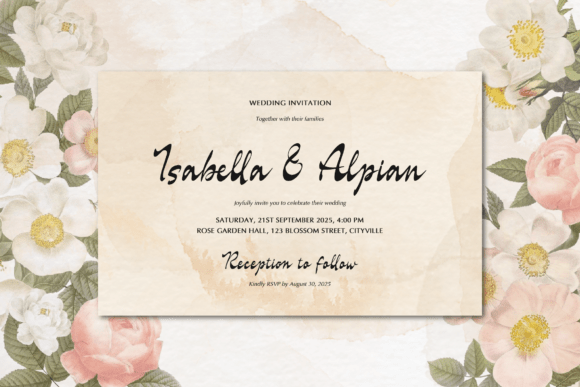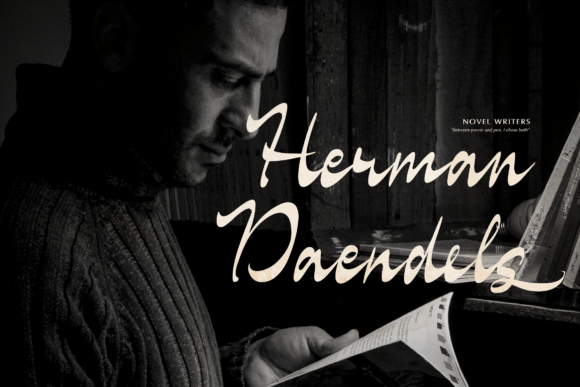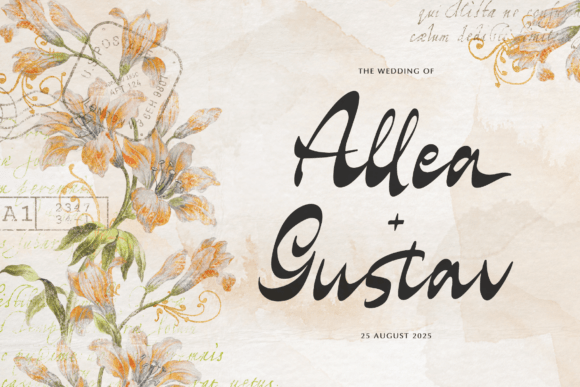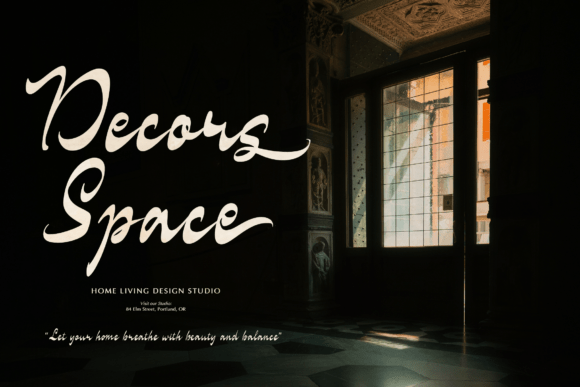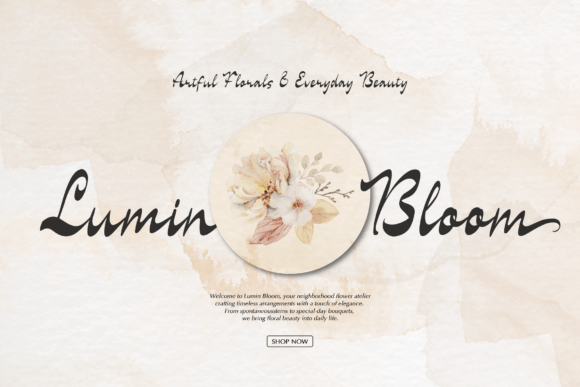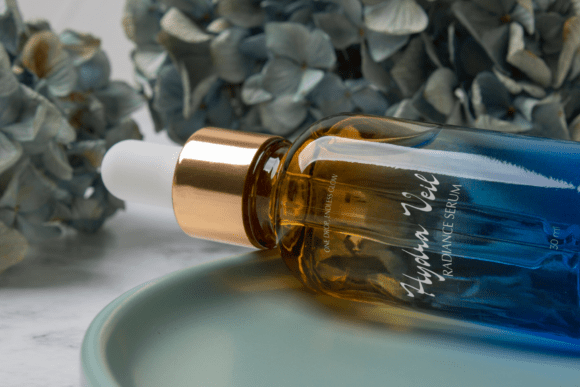
Introducing Carthely Edition Font: Elevate Your Designs with Elegance and Warmth
In the world of typography, a font can make or break the aesthetic of a design. For those seeking a touch of elegance and warmth, Carthely Edition Font is an exceptional choice. This beautiful, handwritten font is designed to bring a sense of sophistication and charm to various design projects, from wedding invitations and branding to quotes and social media graphics.
The Beauty of Carthely Edition
Carthely Edition is a graceful handwritten font that embodies a flowing script style. Its fluid lines and curves are meticulously crafted to capture the essence of elegance, making it perfect for designers and crafters who aim to add a personal touch to their work. With over 290 glyphs, ligatures, and alternates, this font offers a wide range of creative possibilities.
Key Features of Carthely Edition Font
• Handwritten Elegance: Carthely Edition boasts a natural, handwritten look that adds warmth and personality to any design.
• Flowing Script Style: Its script style ensures a smooth and continuous flow, reminiscent of handwritten calligraphy.
• Extensive Glyphs and Alternates: With over 290 glyphs, ligatures, and alternates, designers have the flexibility to create unique and customized text.
• Versatile: Suitable for a variety of projects including wedding invitations, branding, quotes, and social media graphics.
Carthely Edition Font is incredibly versatile, making it an excellent addition to any designer’s toolkit. Here are some of the ways you can use this beautiful font:
Wedding Invitations
Make your wedding invitations stand out with Carthely Edition. Its elegant and flowing script style sets the tone for a sophisticated and memorable event. Whether you’re designing digital invites or traditional paper ones, this font adds a touch of class and romance.
Branding
For brands looking to establish a warm and elegant identity, Carthely Edition is an excellent choice. Use it for logos, packaging, or marketing materials to create a cohesive and stylish brand image.
Quotes and Social Media Graphics
Carthely Edition can also elevate your social media presence. Use it to create stunning quotes, banners, and graphics that capture attention and convey your message with elegance and charm.
Why Choose Carthely Edition?
Choosing Carthely Edition Font for your design projects comes with several advantages:
• Elegant Aesthetic: Adds a sophisticated and warm touch to your designs.
• High Versatility: Suitable for a wide range of design projects.
• Extensive Typography Options: Over 290 glyphs and alternates provide ample creative freedom.
• User-Friendly: Easy to integrate into your design workflow.
Carthely Edition Font is a beautiful and versatile addition to any designer’s collection. Its elegant, handwritten script style, combined with its extensive range of glyphs and alternates, makes it perfect for creating stunning designs. Whether you’re working on wedding invitations, branding, or social media graphics, Carthely Edition can help you achieve a sophisticated and charming look. Elevate your designs with the warmth and elegance of Carthely Edition Font.